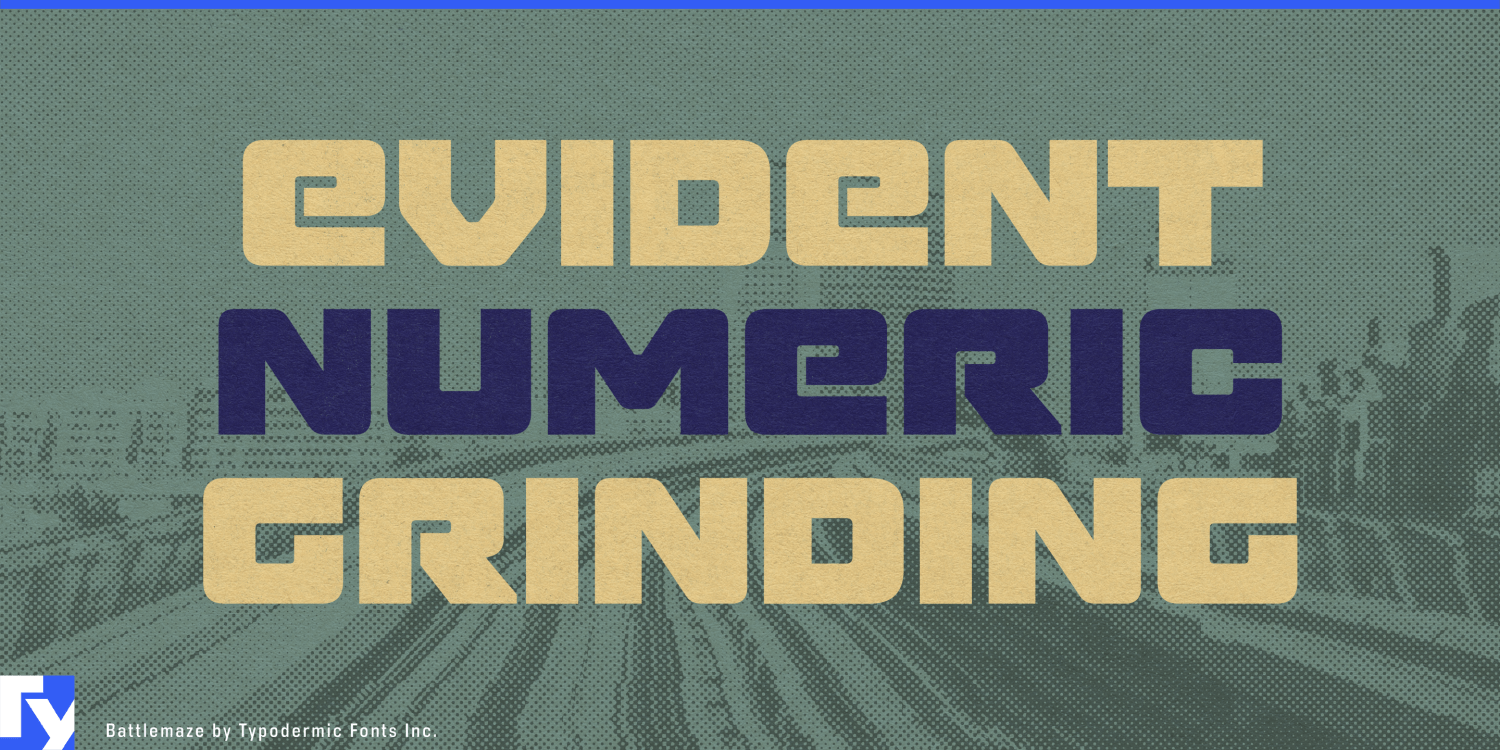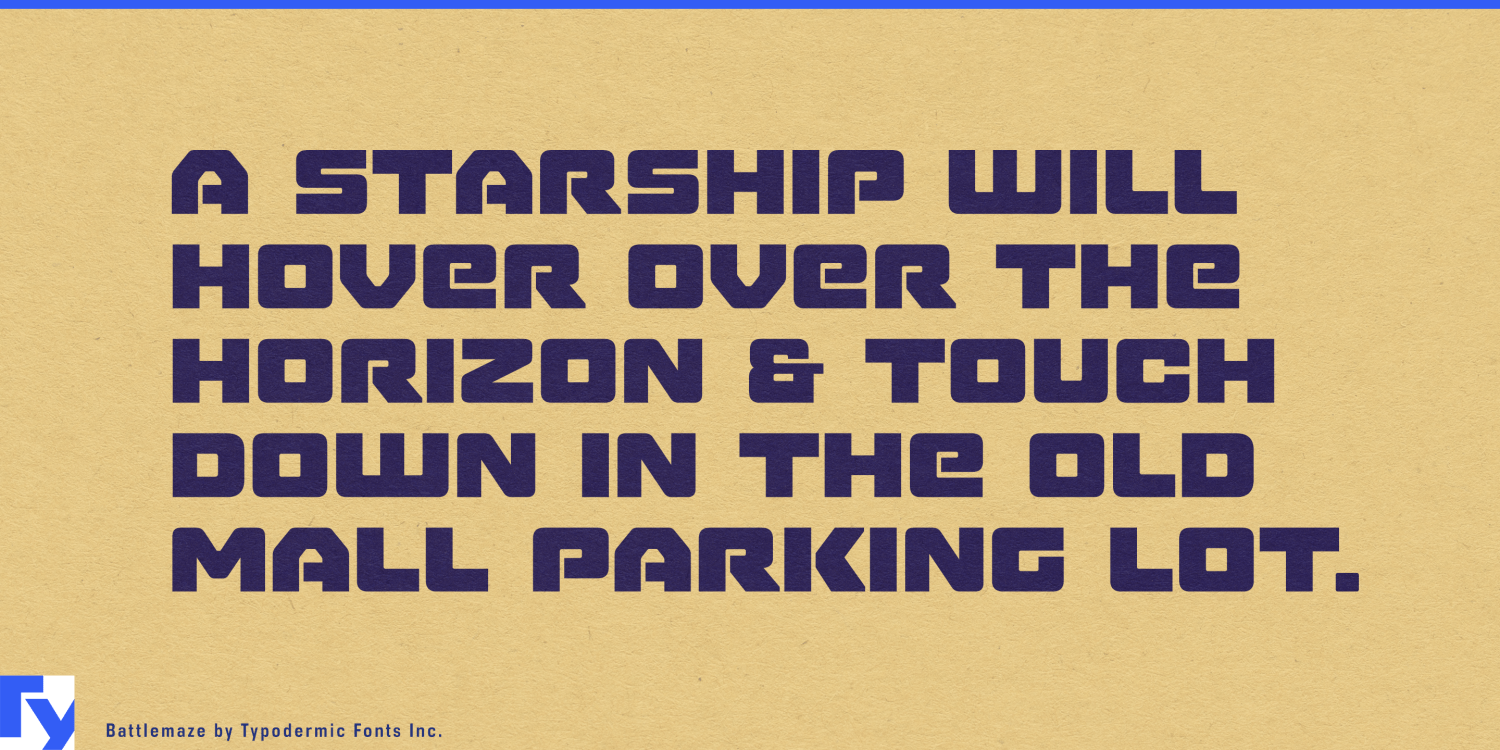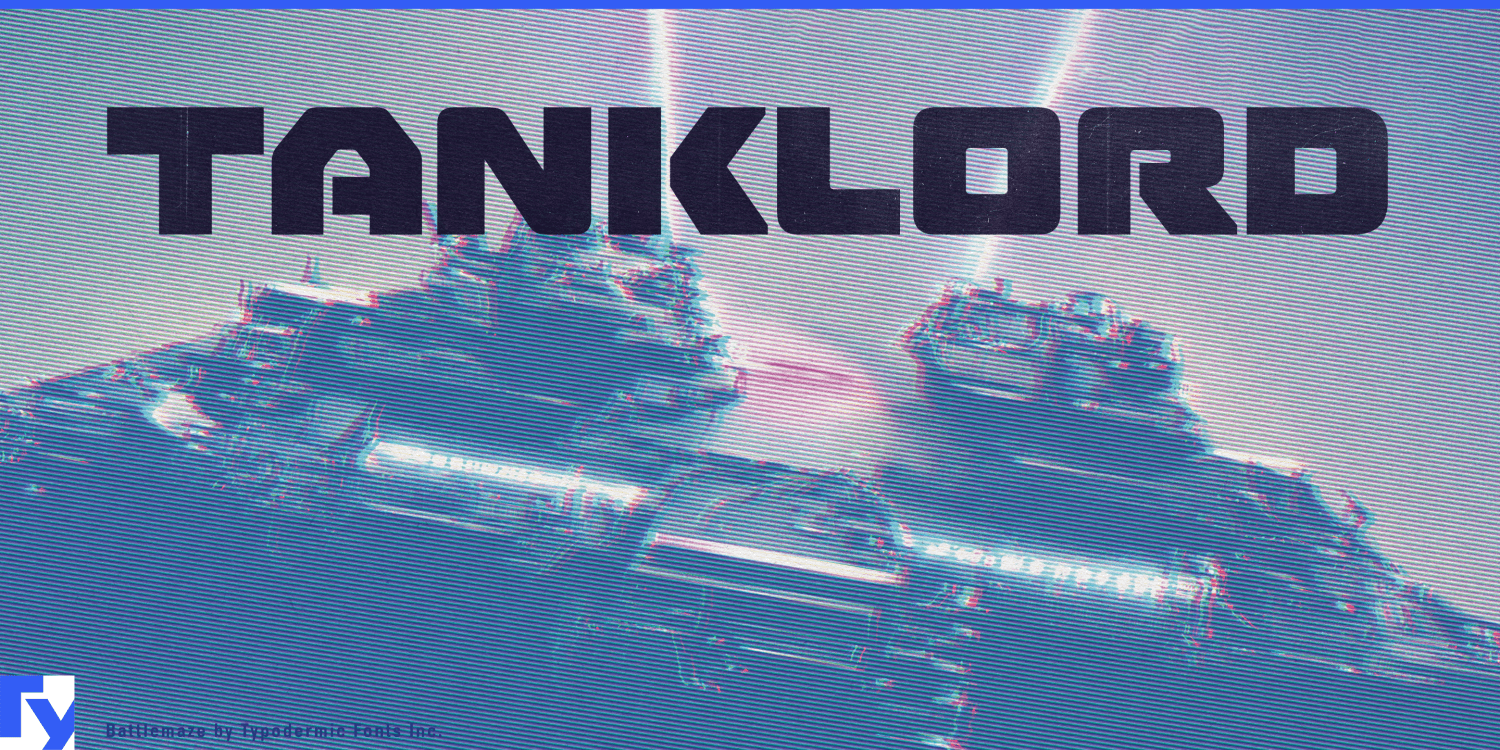
About Battlemaze Hv
Introducing Battlemaze, a bold headline typeface that fuses the stark precision of Japanese industrial design with the futuristic edge of 1980s computer aesthetics. This font stands ready to command attention in any design battlefield, from cutting-edge…